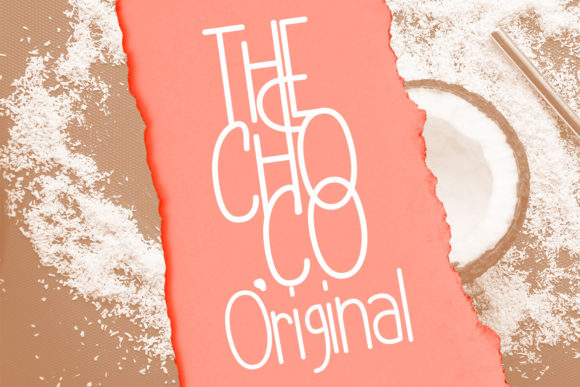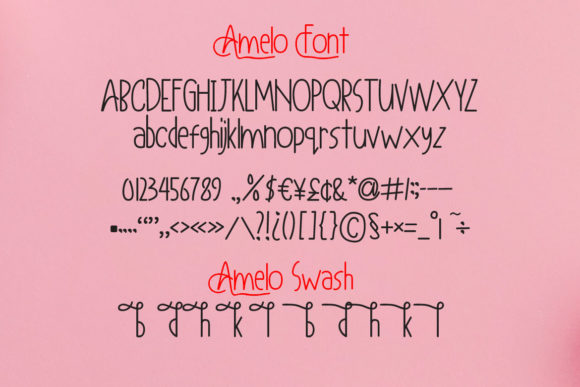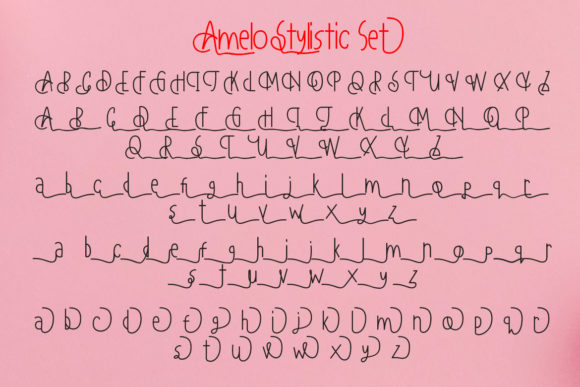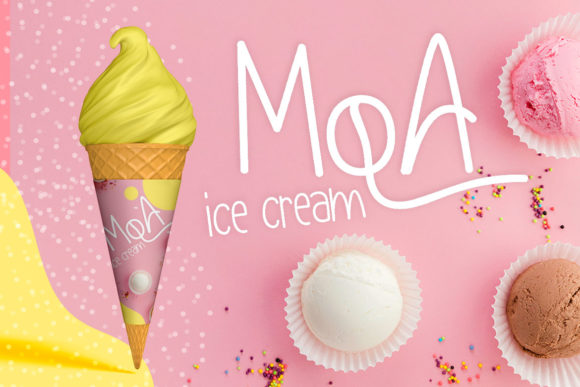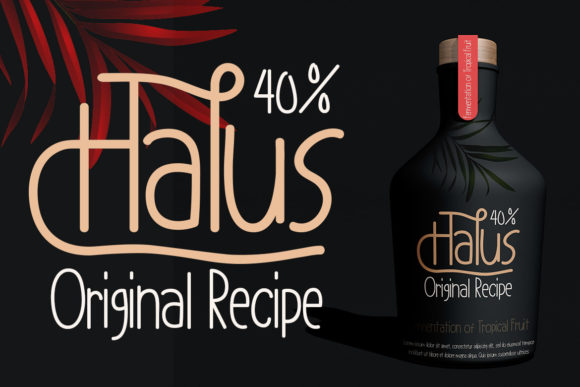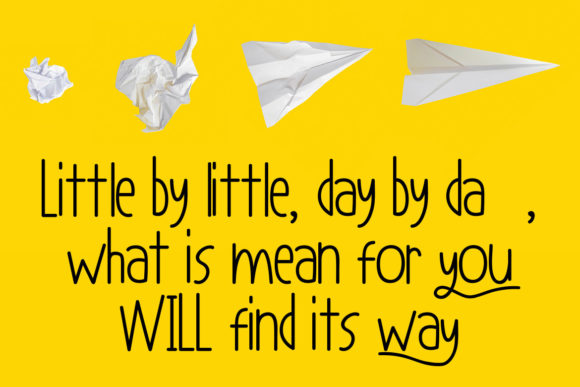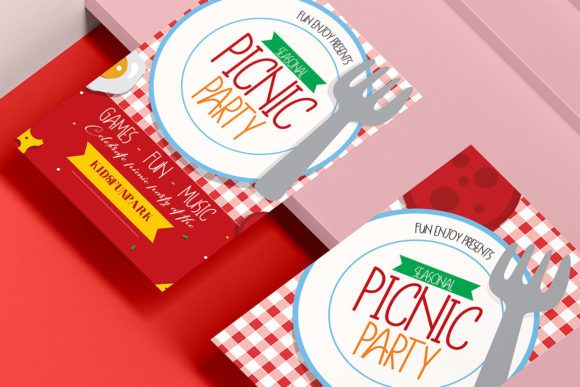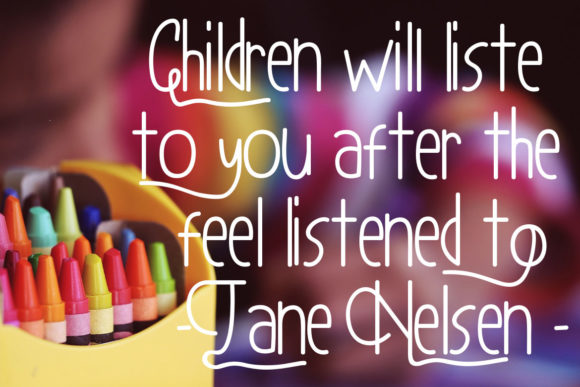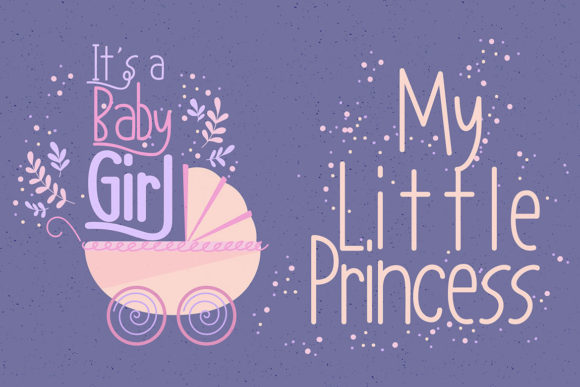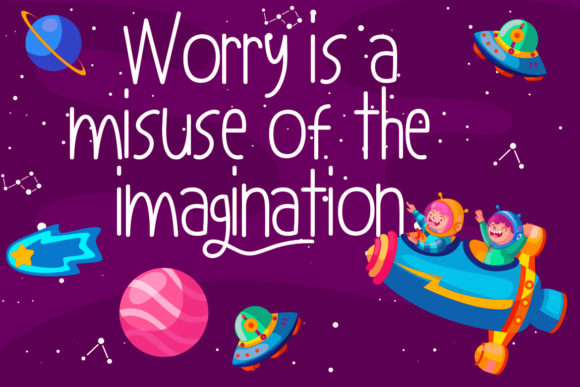
Amelo Font
About Amelo Font
Amelo is a refined and veritable script font that exudes elegance and versatility. With its graceful and balanced letterforms, Amelo is the perfect choice for creating stunning wedding invitations, beautiful stationary art, eye-catching social media posts, and a wide range of other design projects.
The font’s refined and sophisticated style instantly captures attention and adds a touch of luxury to any design. Its flowing and delicate strokes create a sense of grace and beauty, making it ideal for romantic and celebratory occasions like weddings. When used in wedding invitations, Amelo sets the tone for a memorable event, evoking a sense of romance and sophistication.
Amelo’s adaptable style makes it suitable for various types of design projects. Whether you’re creating stationary art, such as personalized cards, art prints, or journals, or designing engaging social media posts, Amelo adds a touch of elegance and charm to your creations. Its versatility allows it to seamlessly fit into both traditional and modern design aesthetics, making it a favorite among designers.
One of the standout features of Amelo is its versatility in conveying emotions and messages. The graceful curves and fine details of each letter create a sense of warmth and intimacy, making it perfect for expressing heartfelt sentiments. Whether you’re designing quotes, greeting cards, or personal branding materials, Amelo adds a personal touch that resonates with the audience.
Furthermore, Amelo’s readability is exceptional, ensuring that your message comes across clearly and effectively. The balanced proportions and carefully designed letterforms make it easy to read in various sizes and across different mediums, whether it’s in print or digital formats.
Amelo also offers additional creative options through its OpenType features. With access to alternate characters, ligatures, and swashes, you can customize and personalize your designs, adding unique and eye-catching elements. This allows you to create truly bespoke and captivating designs that stand out from the crowd.
In conclusion, Amelo is a refined and veritable script font that brings an air of elegance and versatility to your design projects. Whether you’re creating ravishing wedding invitations, beautiful stationary art, or eye-catching social media posts, Amelo’s graceful and balanced style will elevate your designs to new heights. So, fall in love with Amelo’s adaptable style, and let it inspire you to create captivating and memorable designs that leave a lasting impression.